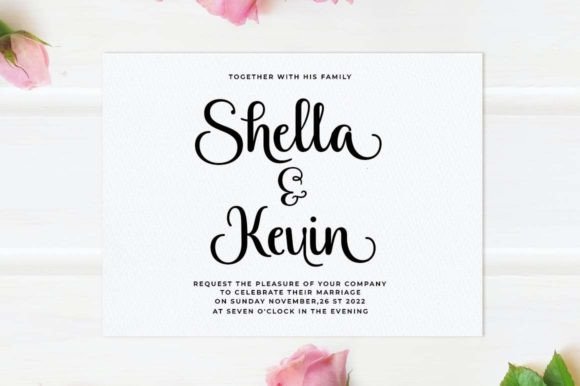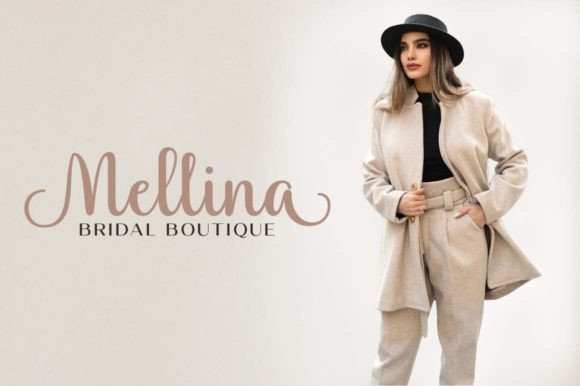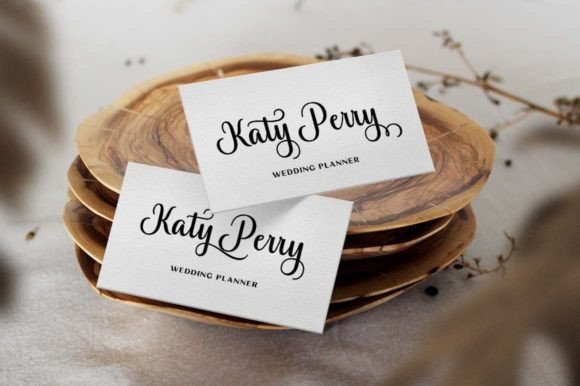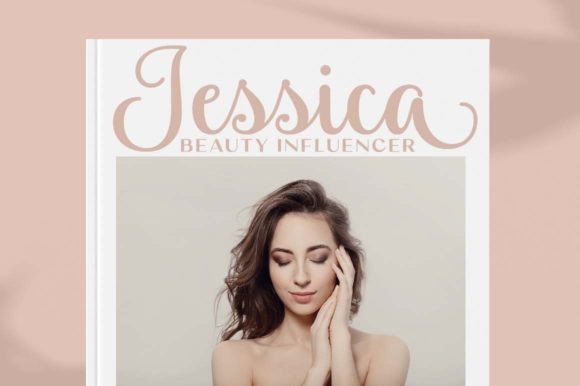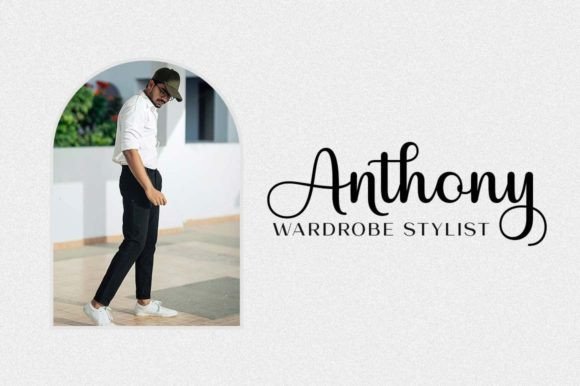
About Mellow Sweety Font
“Mellow Sweety” is an enchanting script font that offers a wide spectrum of applications, from greeting cards to headlines. With its romantic and versatile design, this font is a perfect choice for adding a touch of charm to your next project.
The enchanting qualities of “Mellow Sweety” make it suitable for various design purposes. Whether you’re working on romantic greeting cards, captivating headlines, or any other creative project, this font brings a romantic feel that enhances the overall aesthetic.
One notable feature is that “Mellow Sweety” is PUA encoded, allowing easy access to all glyphs and swashes. This means you can seamlessly incorporate various design elements, ensuring that your creative possibilities are not limited.
Consider using “Mellow Sweety” when you want to infuse a romantic and enchanting vibe into your designs. Its script style brings a sense of elegance and sophistication, making it a versatile choice for projects where you want to convey a romantic atmosphere.
In essence, “Mellow Sweety” is more than just a font; it’s a tool that allows you to effortlessly add a romantic touch to your creative projects. With its PUA encoding, accessing the wide range of glyphs and swashes becomes a seamless process, offering you the freedom to explore and create captivating designs.